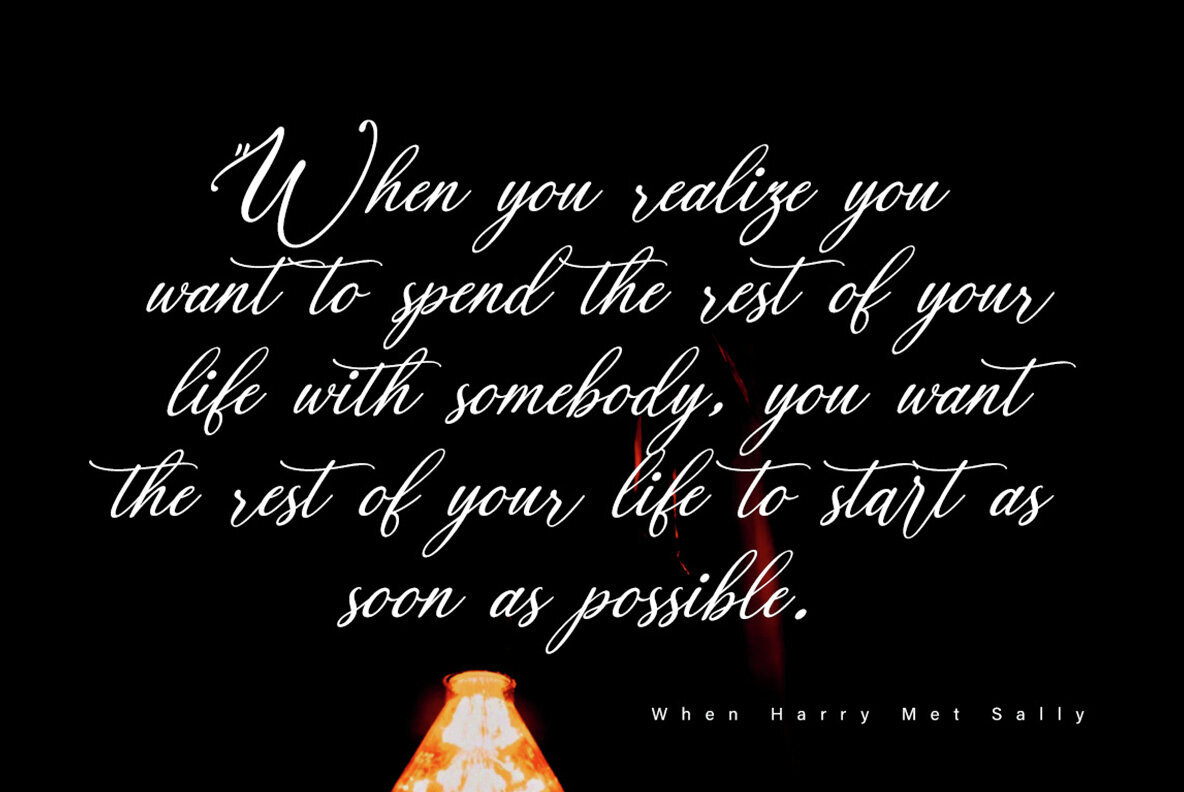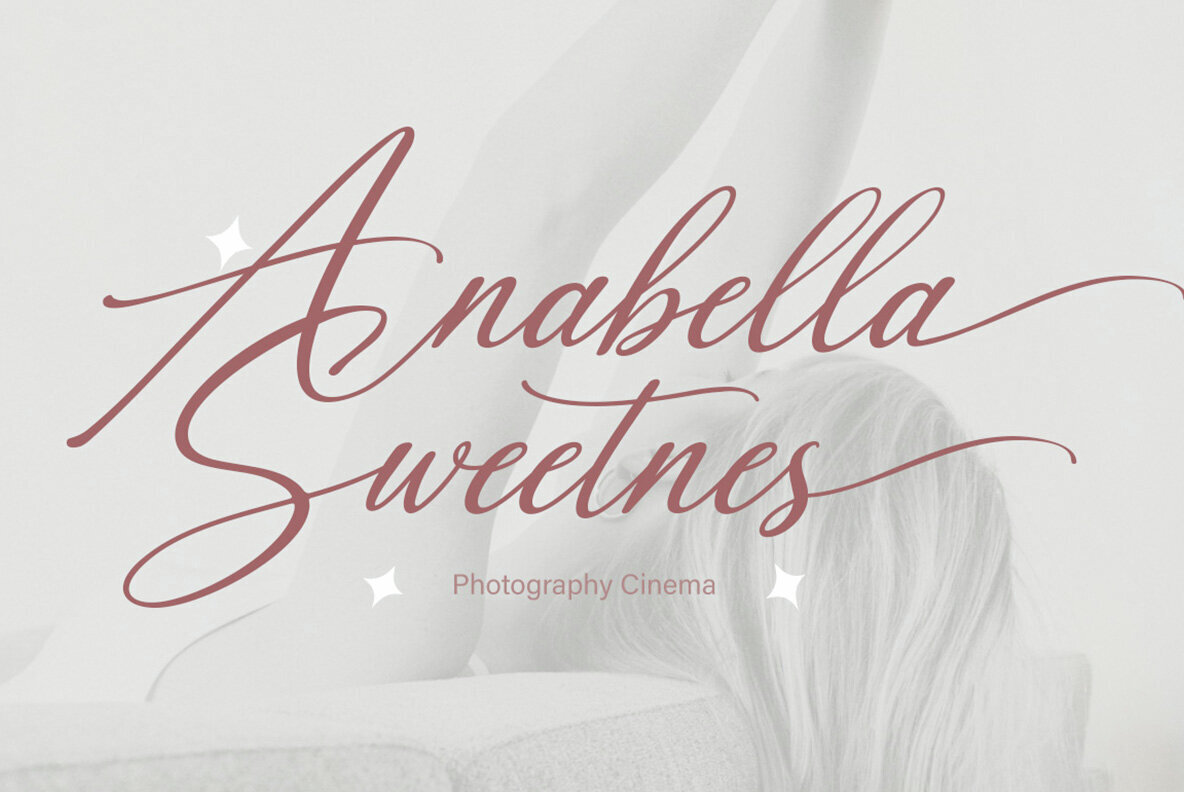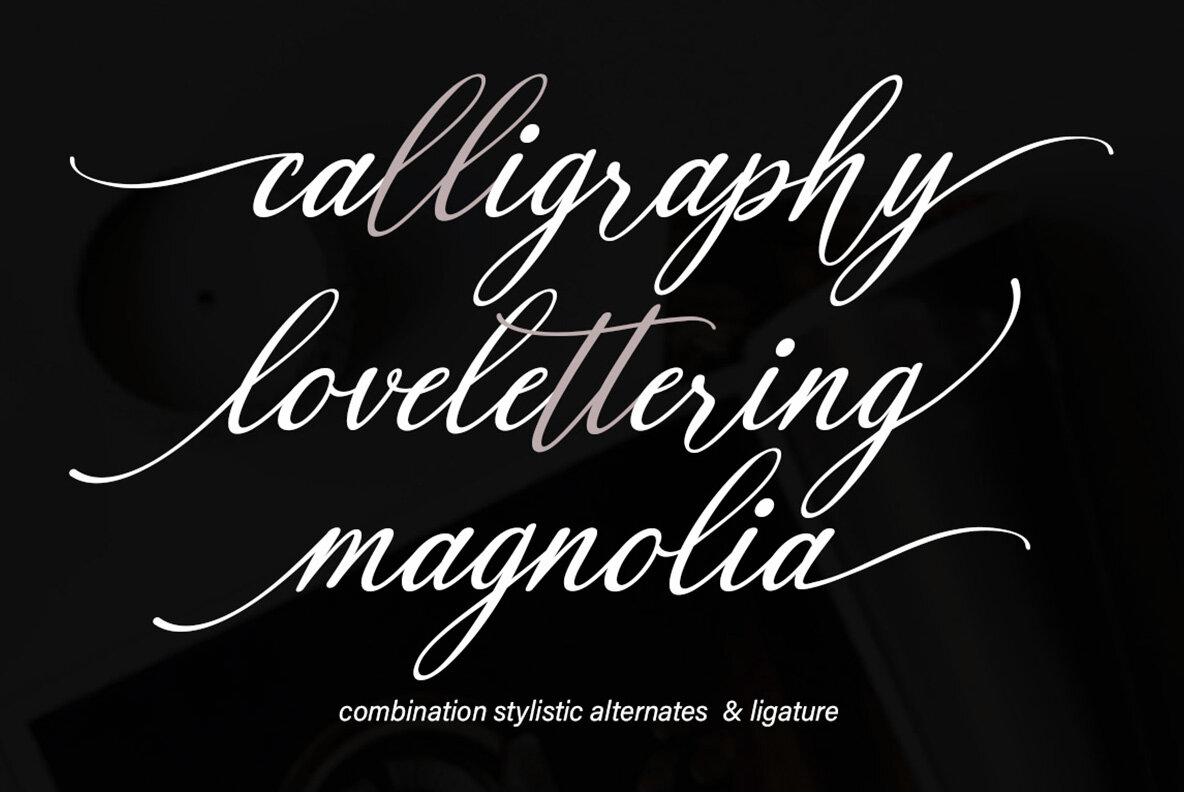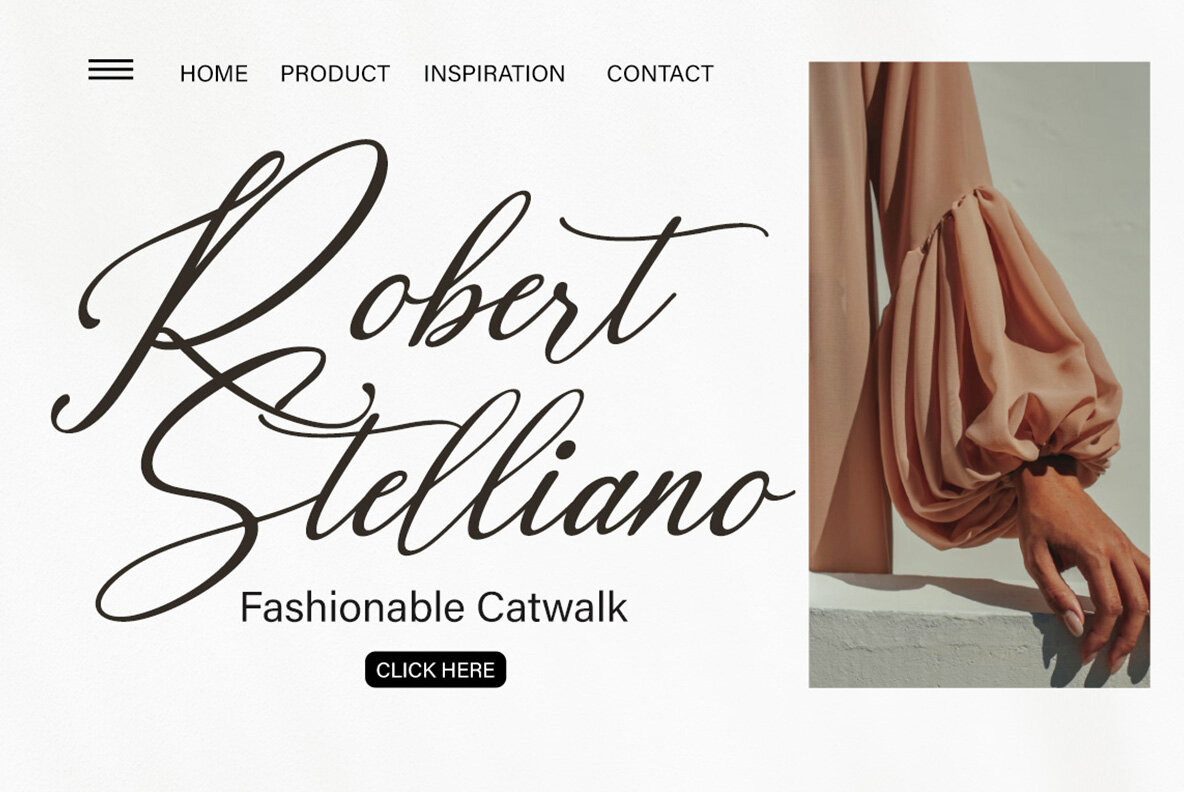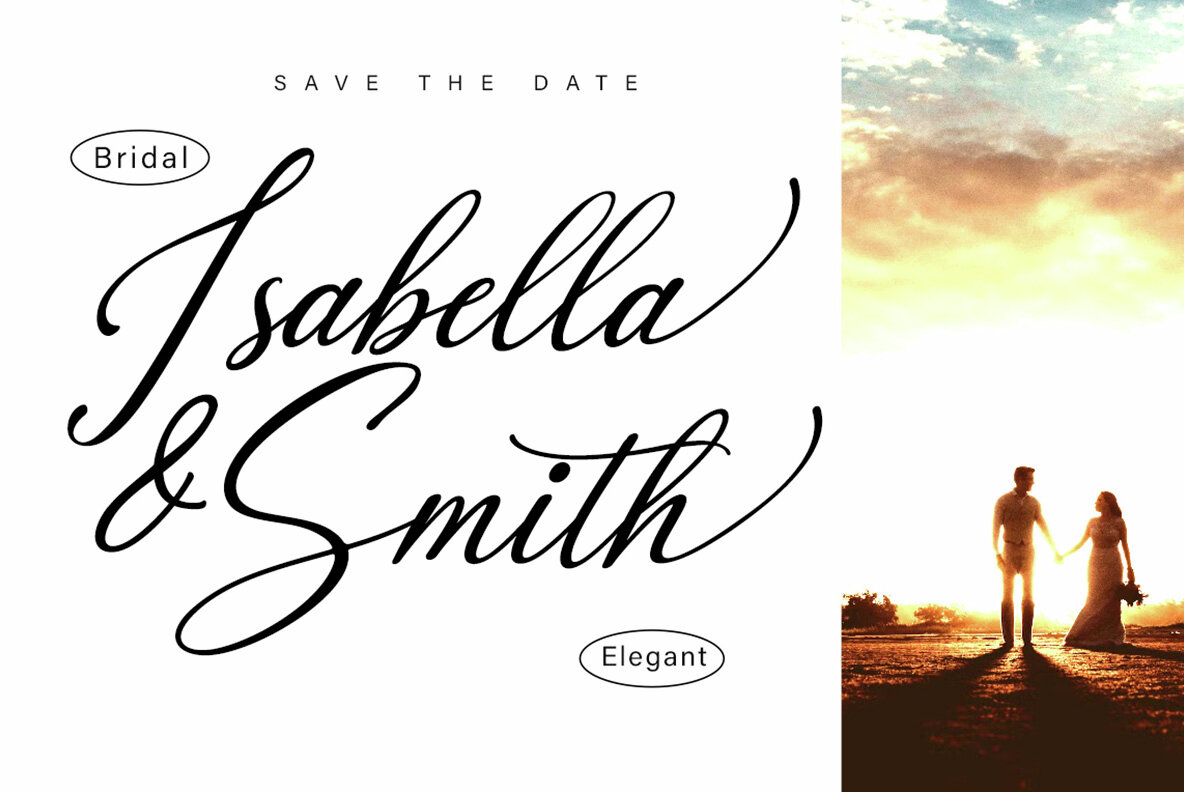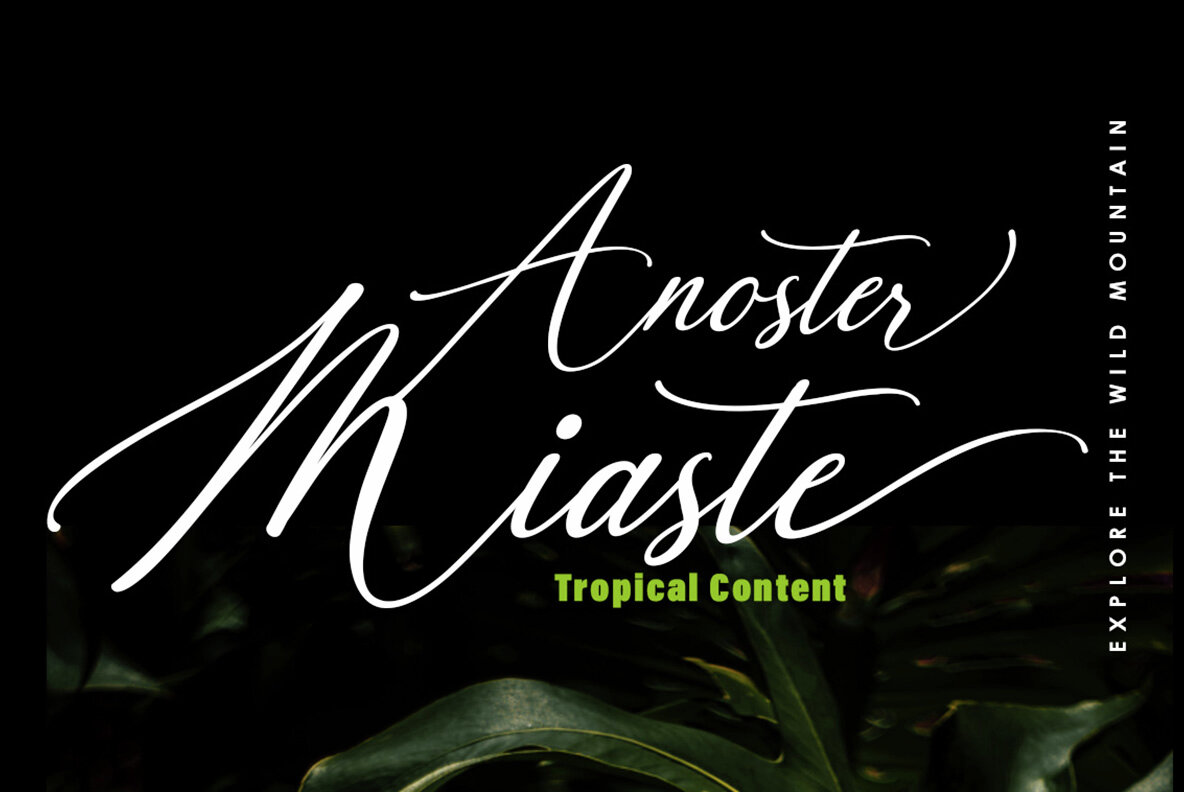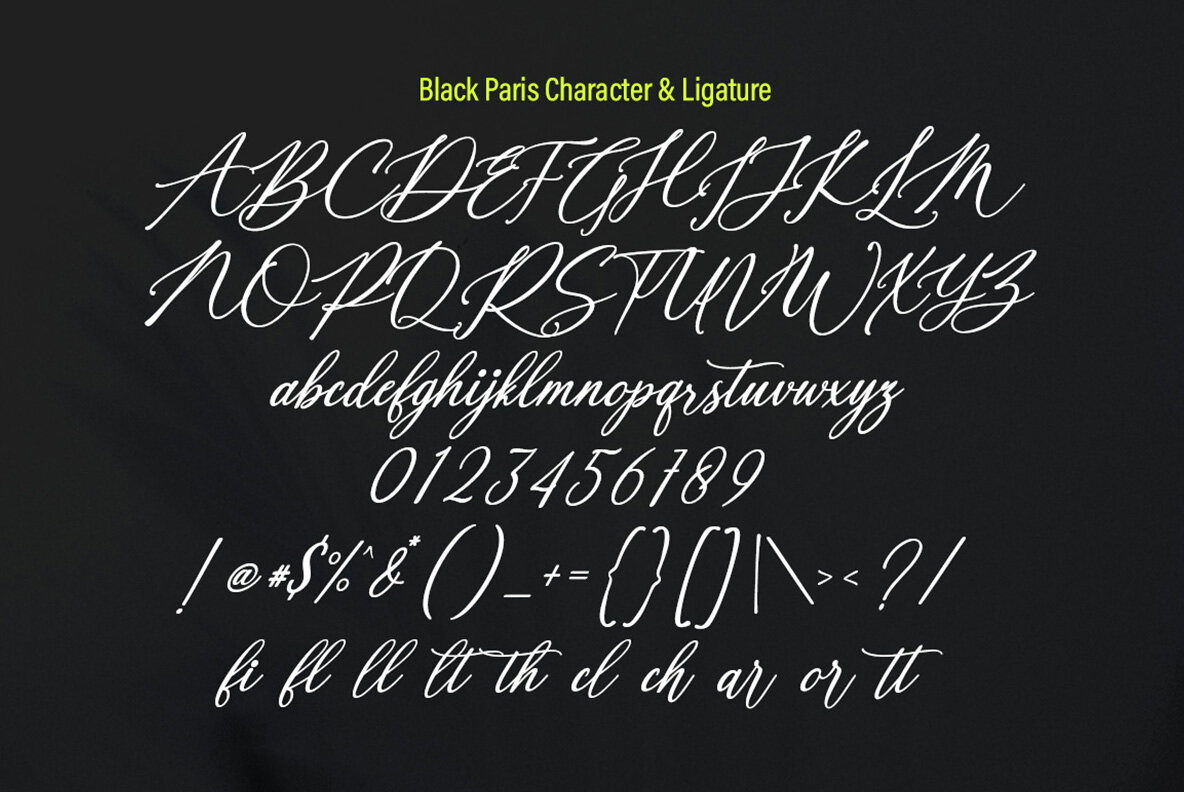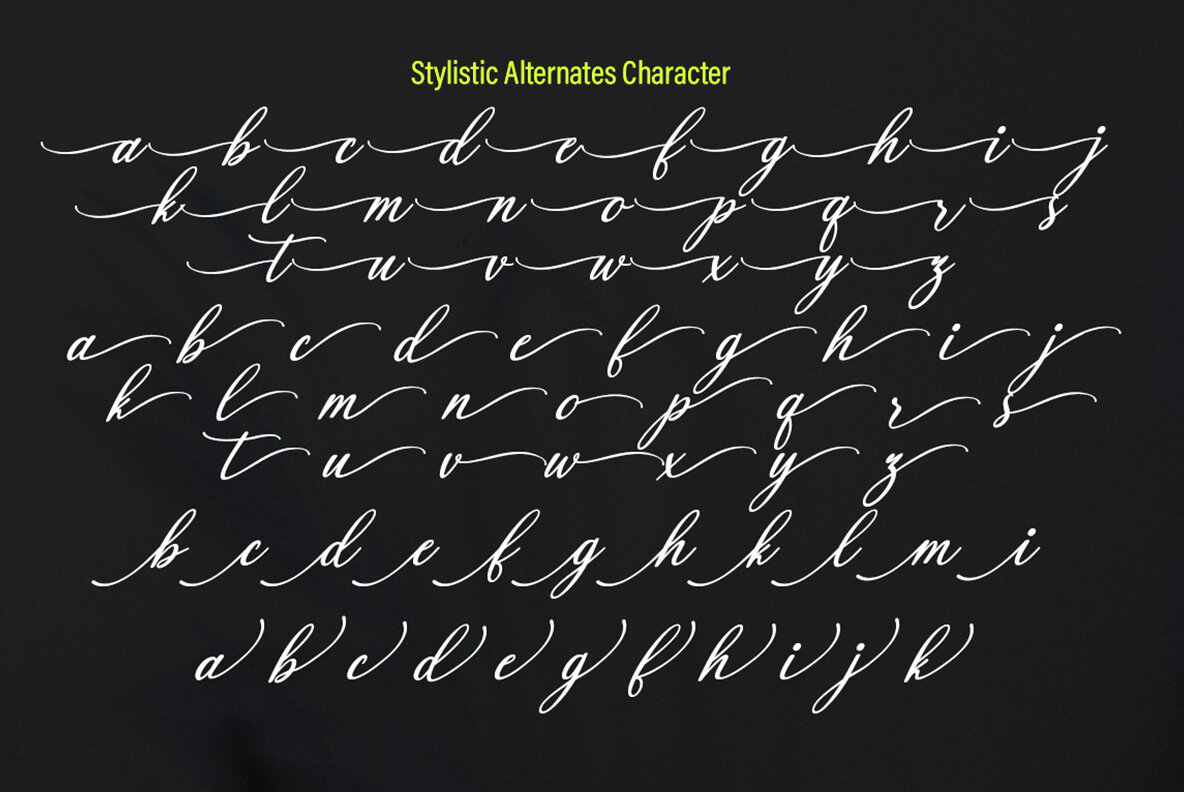
Black Paris Font
Black Paris Regular
Introducing Black Paris, a modern calligraphy font designed for those seeking elegance and style in their creative projects. This beautiful script is ideal for crafting wedding invitations, save-the-date cards, and feminine branding materials.Black Paris: Elegant Calligraphy Font for Sophisticated Designs